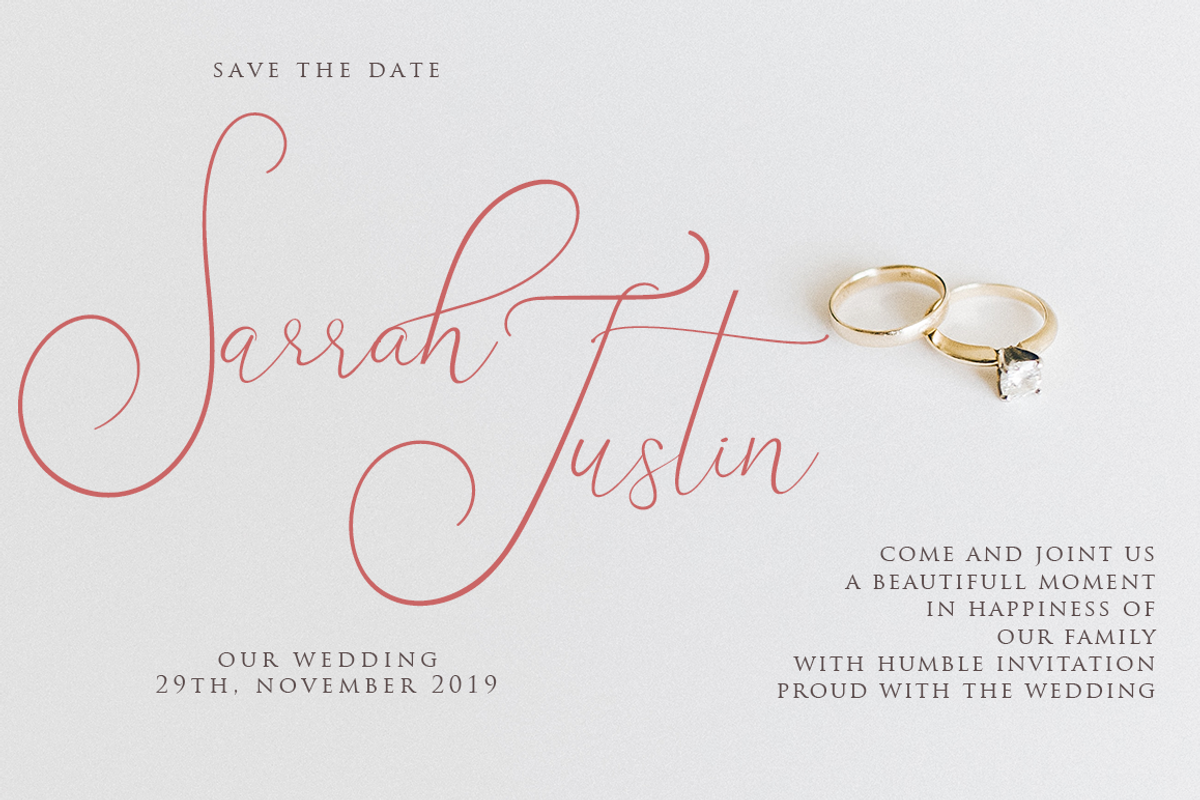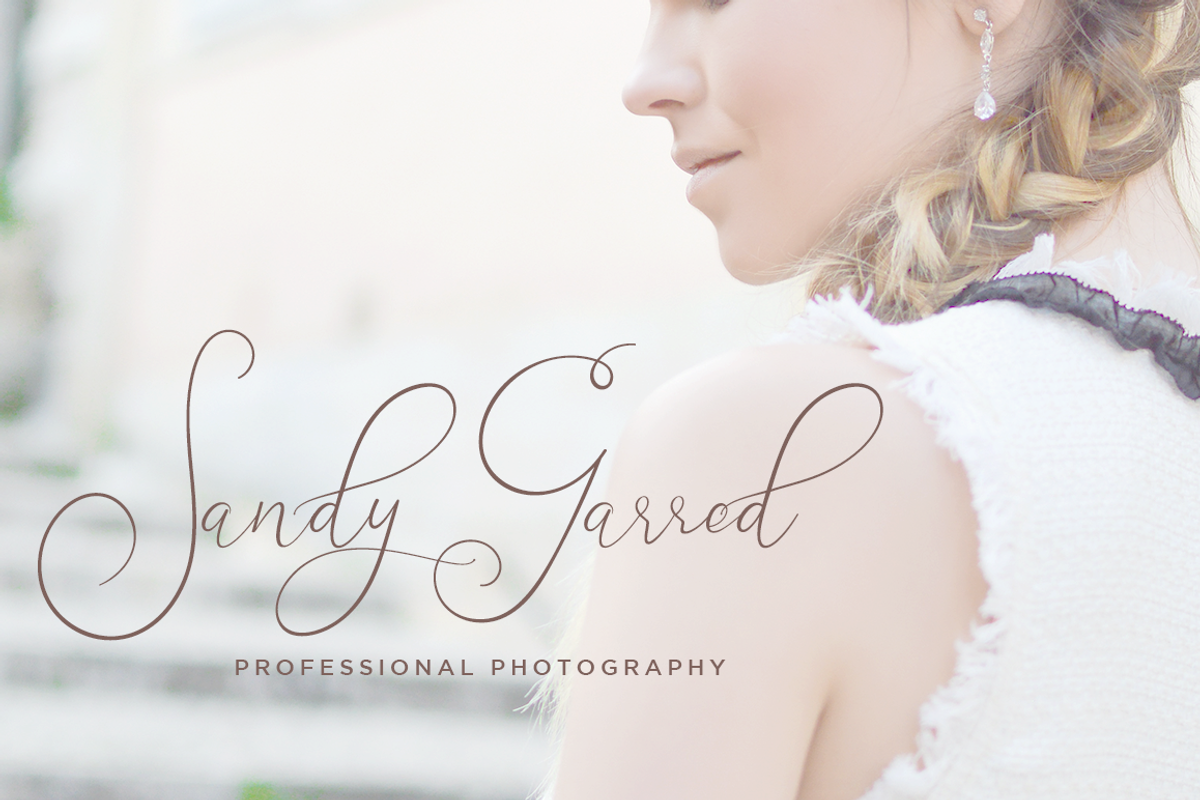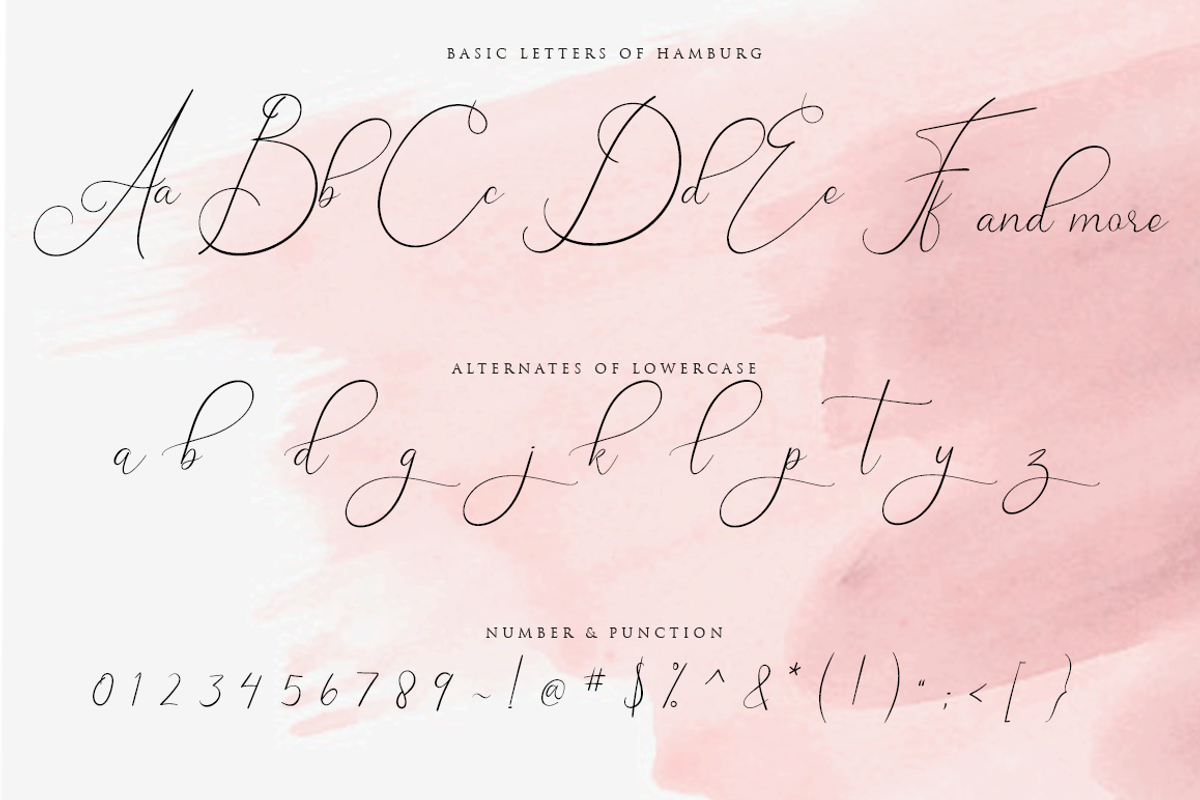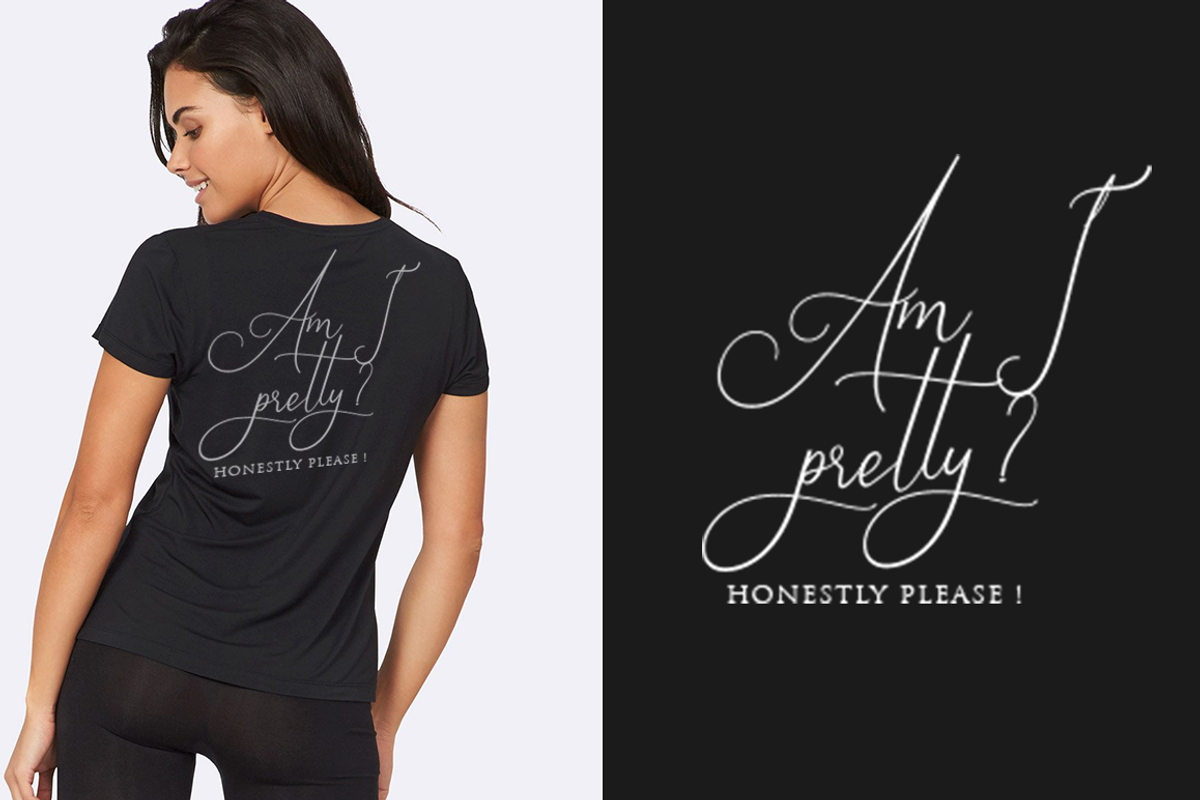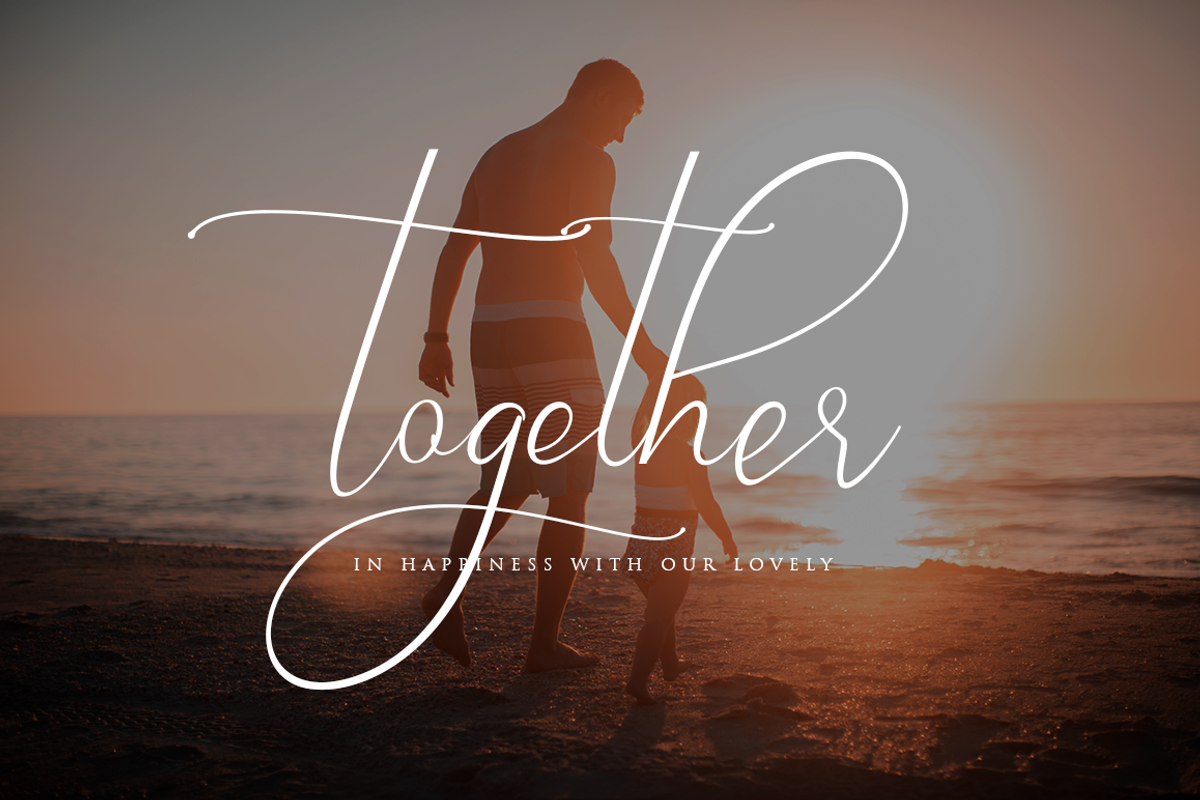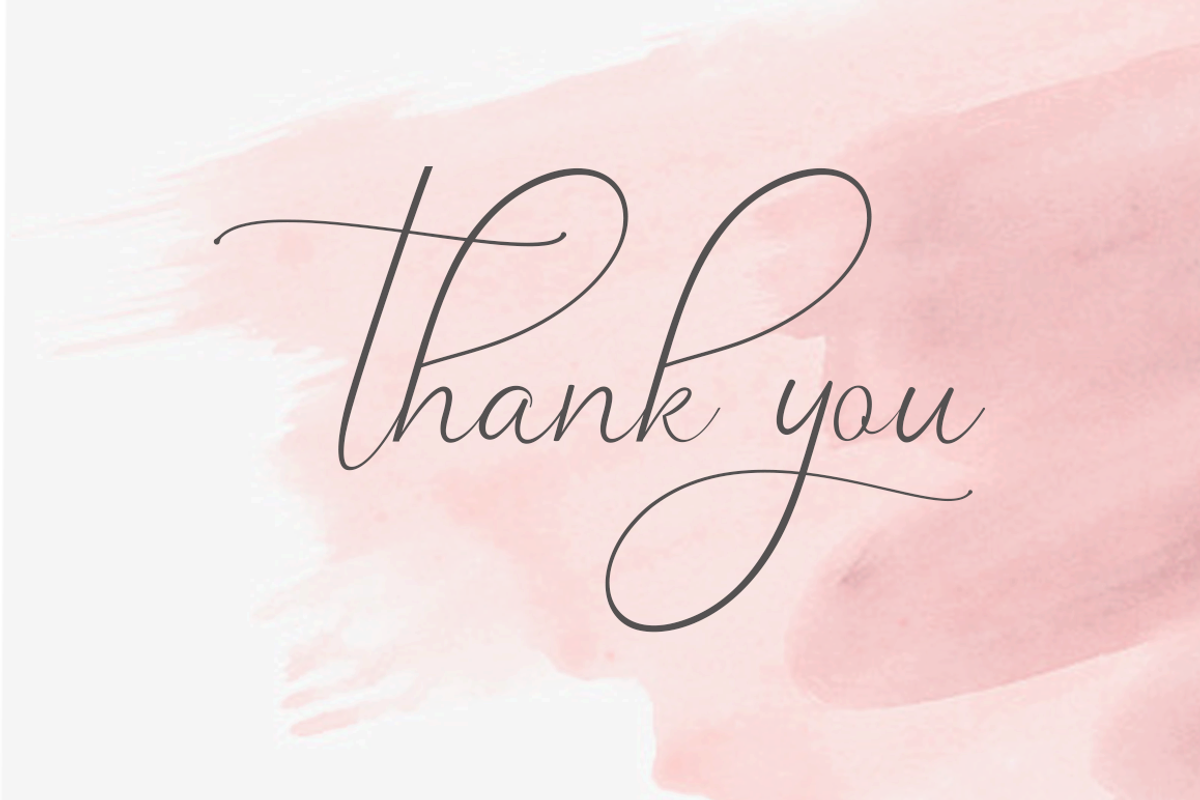
Hamburg Love Font Pretty
Just introduce my New Collection font. Hamburg is a beautiful font for your brand and I love using this one with Photoshop for your requirement.
alternates for lowercase
I believe You will love to use this font for anything brand.
Why Hamburg Love Font Pretty is worth a look
Hamburg Love Font Pretty by Haksen fits naturally into Branding, posters, packaging, typography.